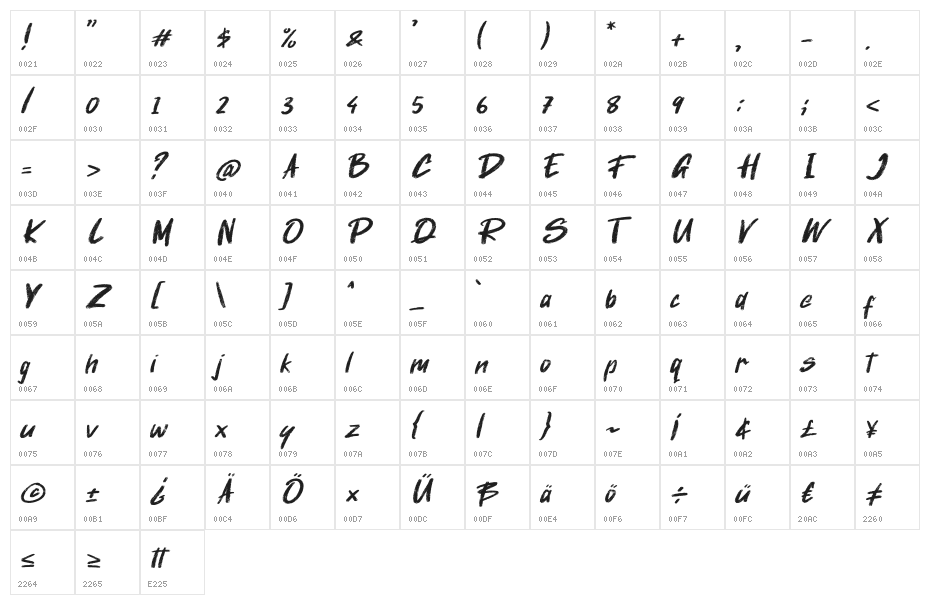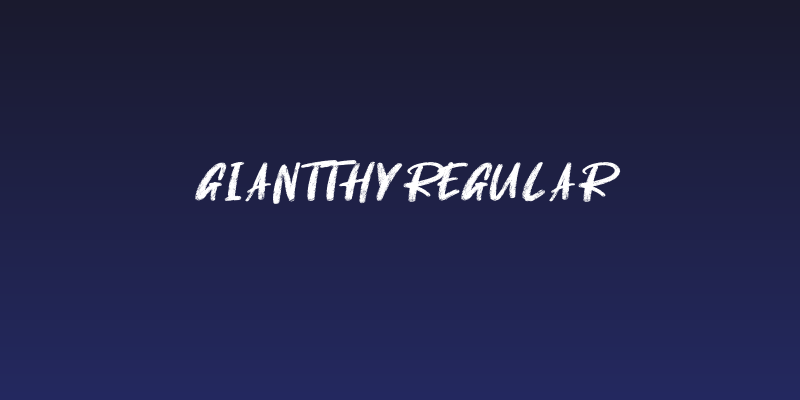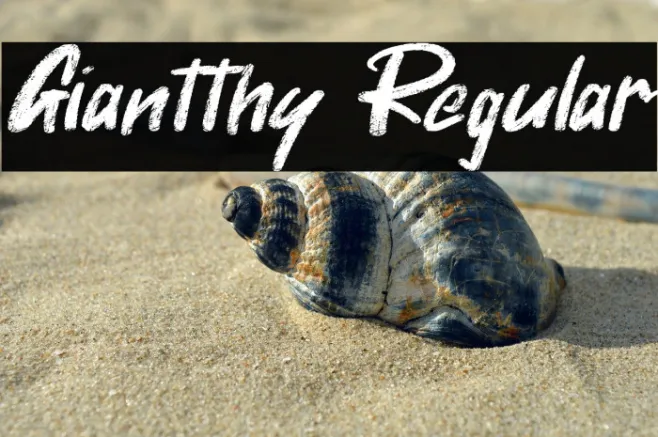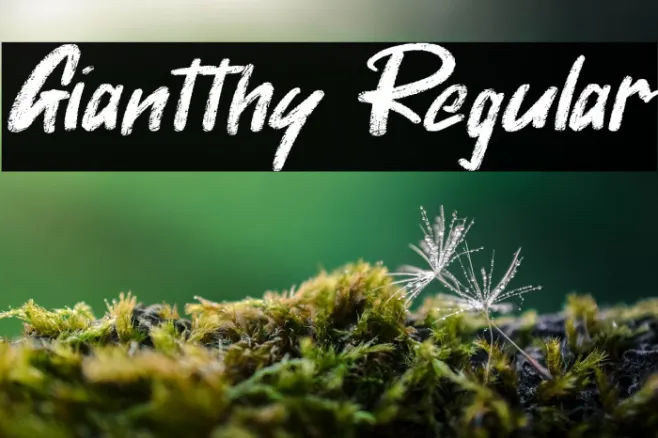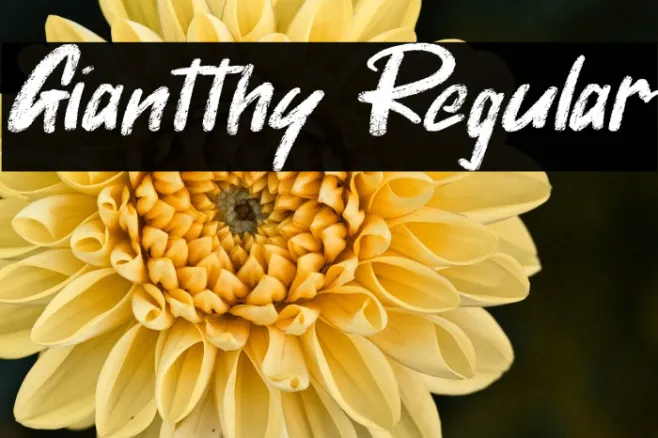
Giantthy Regular Font
Giantthy Regular Description
This font features a bold and expressive handwritten style, characterized by its textured brush strokes and dynamic flow. The letters exhibit a natural, organic feel, with varying stroke widths that add a sense of movement and energy. The uppercase and lowercase letters maintain a consistent style, while the numerals and special characters complement the overall aesthetic. The font's rough edges and irregularities give it a handcrafted appearance, making it ideal for projects that require a personal touch or artistic flair.
| Proposed Projects | Ideal for branding, posters, social media graphics, and creative projects that require a personal or artistic touch. |